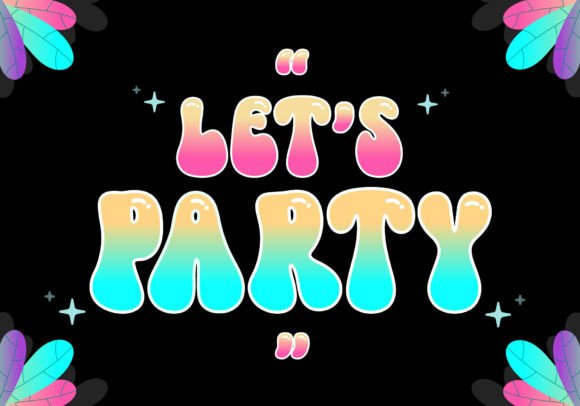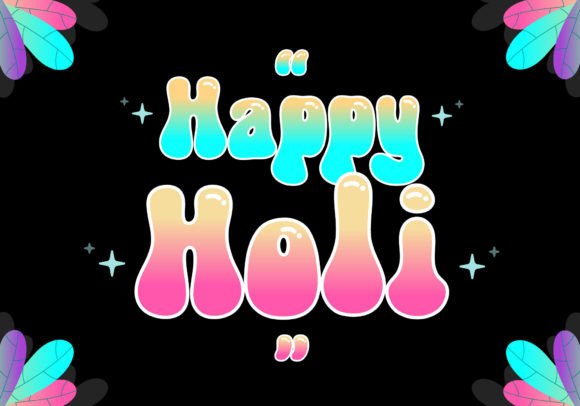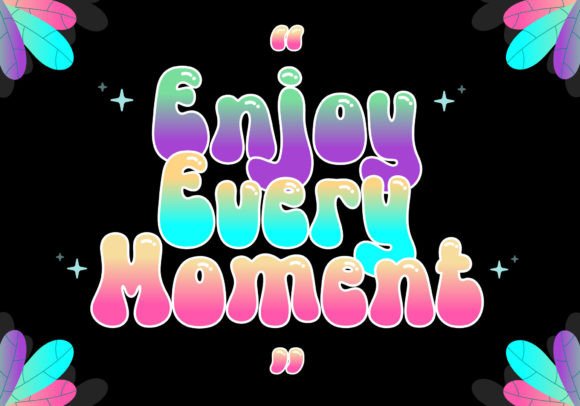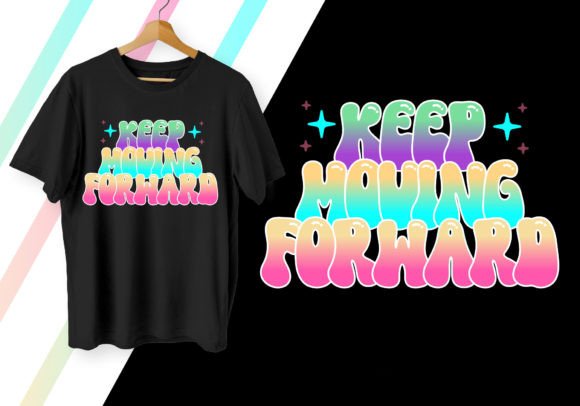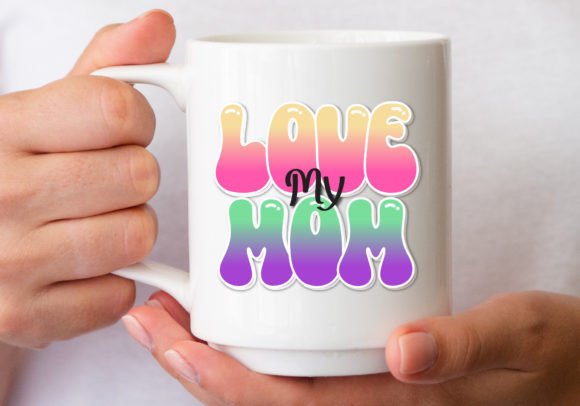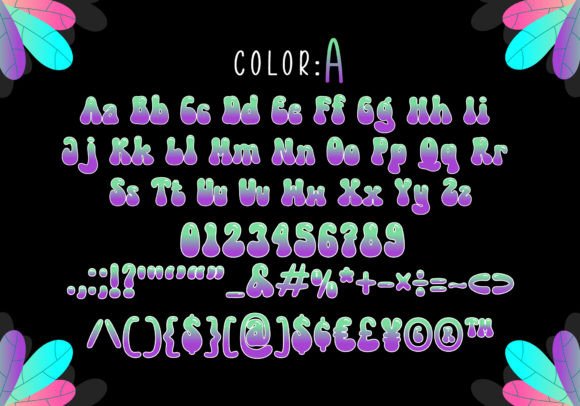
Easter Vibes Font: Add a Burst of Color and Energy to Your Designs
Are you looking for a font that can add a touch of excitement and personality to your designs? Look no further than the Easter Vibes Font! This colorful and bulky font is perfect for logos, packaging, and designs that require a sense of playfulness and energy.
A Bold and Vibrant Appearance
Easter Vibes is a font that packs a punch and demands attention. Its letters are well-crafted, with a mix of bright hues and chunky shapes that create a sense of playfulness and energy. The font’s bold and vibrant appearance makes it perfect for designs that need to stand out from the crowd.
Whether you’re a designer or a crafter, Easter Vibes Font is a great addition to your font collection. Its versatility makes it suitable for a wide range of projects, from logos and packaging to greeting cards and DIY crafts.
Tips for Using Easter Vibes Font
Here are a few tips for getting the most out of Easter Vibes Font:
- Use it to add a pop of color to your designs
- Experiment with different font sizes and styles to create visual interest
- Pair it with other fonts to create a unique and eye-catching combination
- Use it to create custom logos, packaging, and branding materials
Benefits of Using Easter Vibes Font
There are many benefits to using Easter Vibes Font in your designs. Here are a few:
- Attention-grabbing: The font’s bold and vibrant appearance makes it perfect for designs that need to stand out from the crowd.
- Playful and energetic: The font’s mix of bright hues and chunky shapes creates a sense of playfulness and energy.
- Versatile: Easter Vibes Font is suitable for a wide range of projects, from logos and packaging to greeting cards and DIY crafts.
Easter Vibes Font is a fun and vibrant font that’s perfect for designers and crafters who want to add a touch of excitement and personality to their designs. With its bold and vibrant appearance, versatility, and ease of use, it’s a great addition to any font collection.